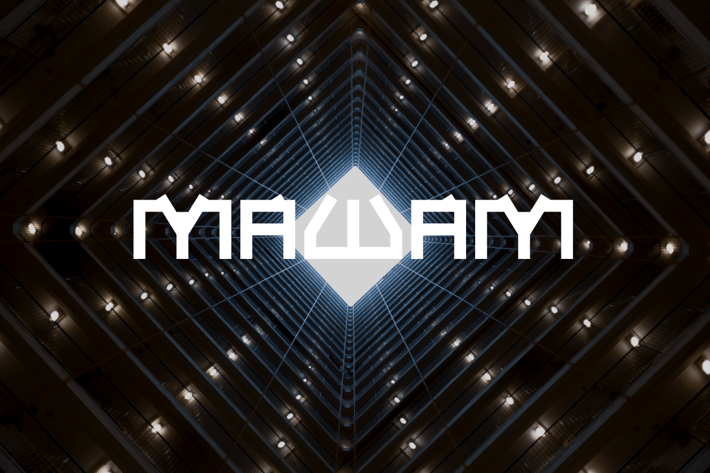
Mawam Font
Introducing our new product Mawam Font - Modern Font
Mawam Font - Modern Font is a bold and authentic display font. The font is suitable for any branding project like logo, t-shirt printing, esport, and many more. outstanding in a wide range of contexts.